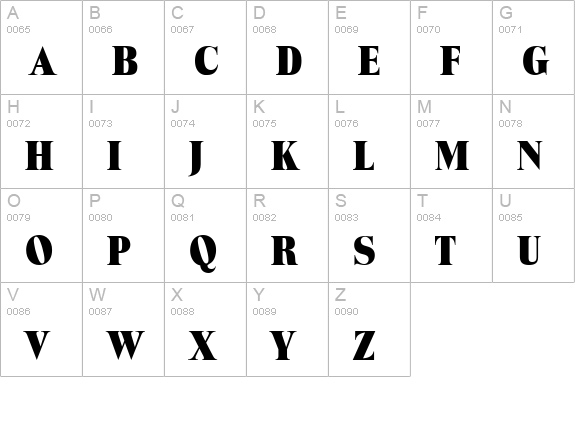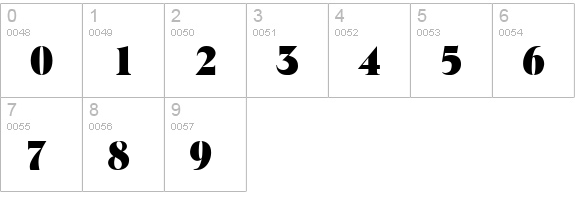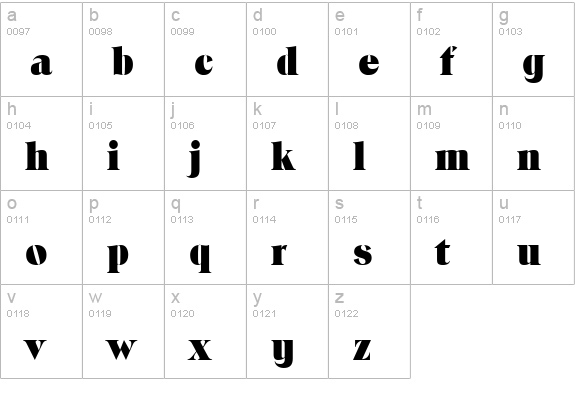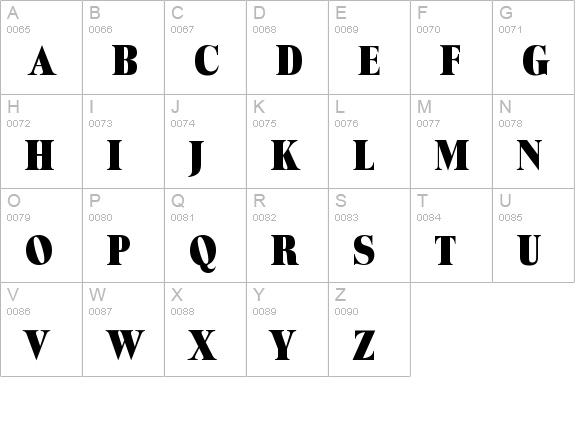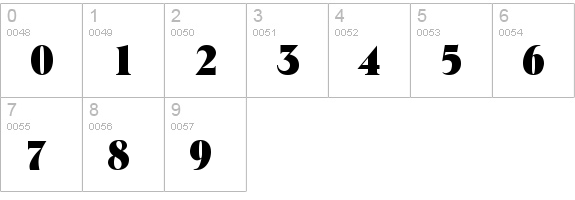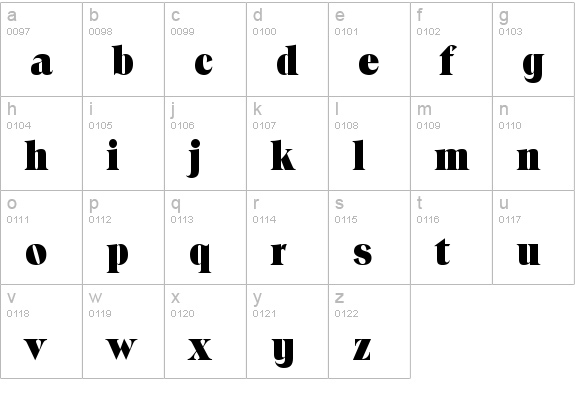
Locura Display SSi Font Details
Locura Display SSi is a striking and eye-catching font that demands attention with its bold and unique design. Perfect for headlines, posters, and other display purposes, this font exudes a sense of energy and excitement. The sharp angles and strong lines give it a modern and edgy look that is sure to make your designs stand out. The best part? Locura Display SSi is available for free download at FontsMarket.com. This means you can easily access this fantastic font and use it in your projects without any cost. Don't miss out on the opportunity to add Locura Display SSi to your font collection and elevate your designs to the next level. Download it now and let your creativity run wild!